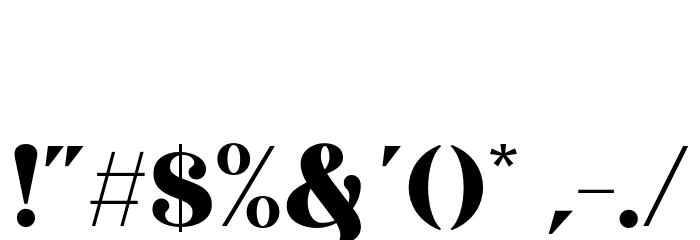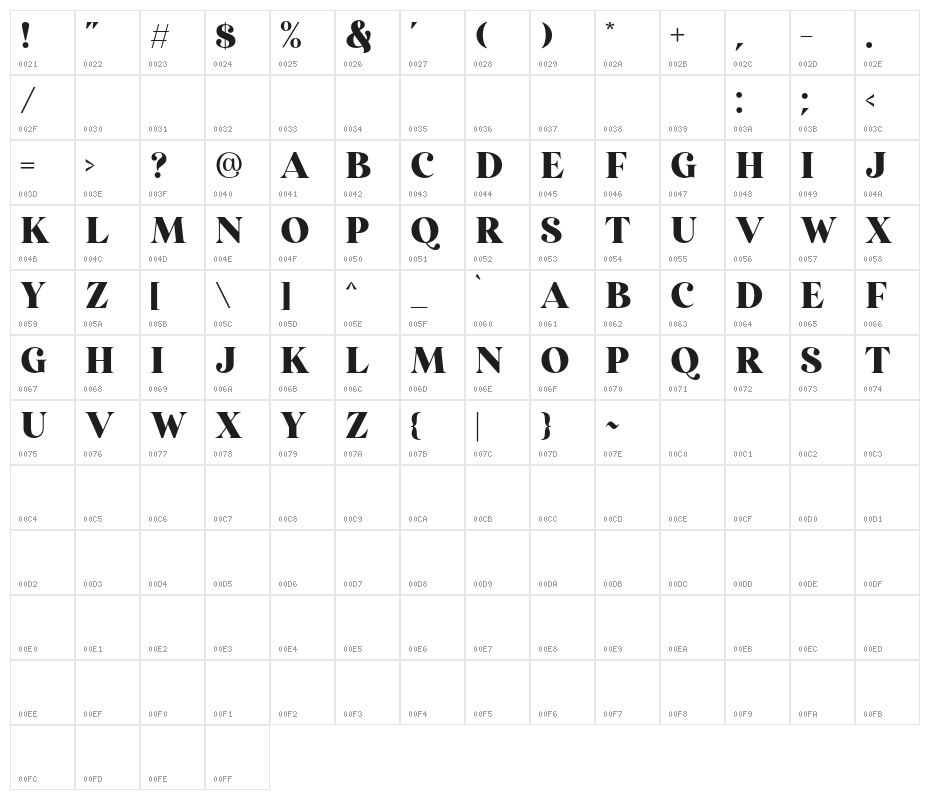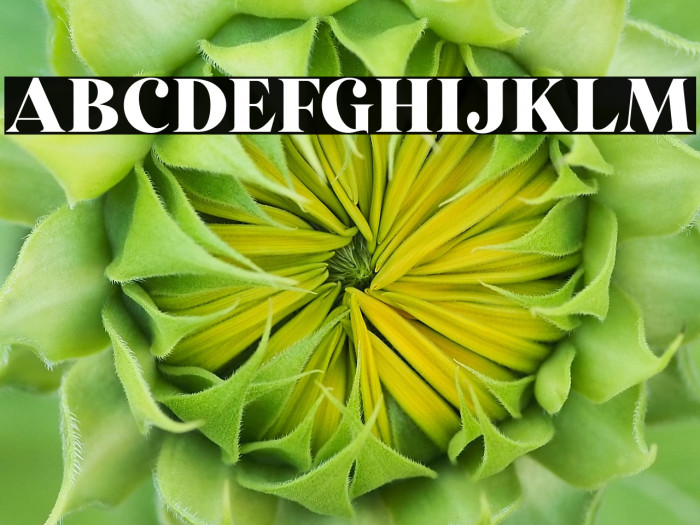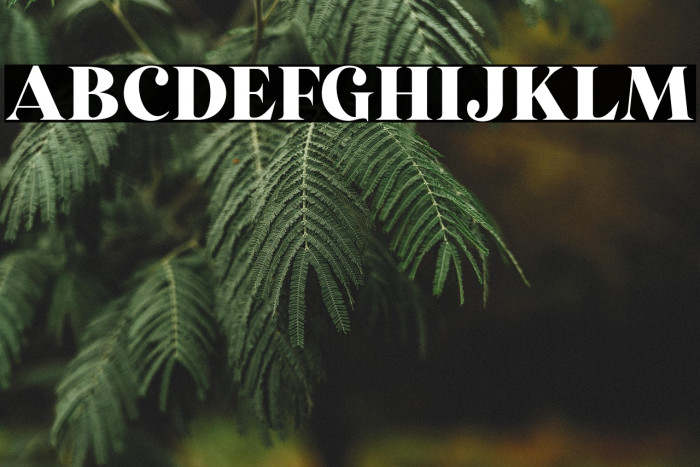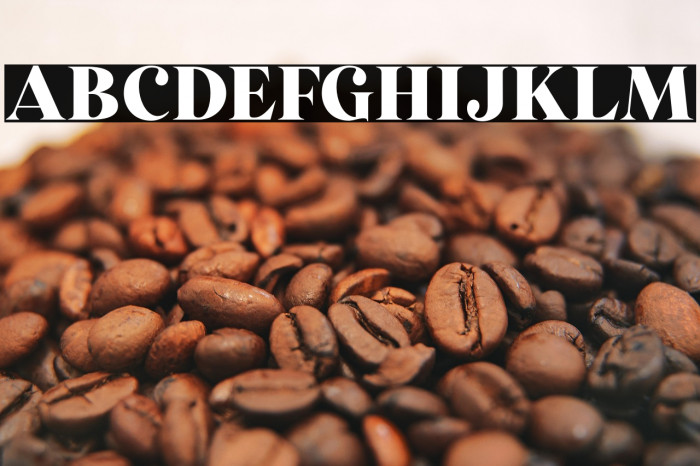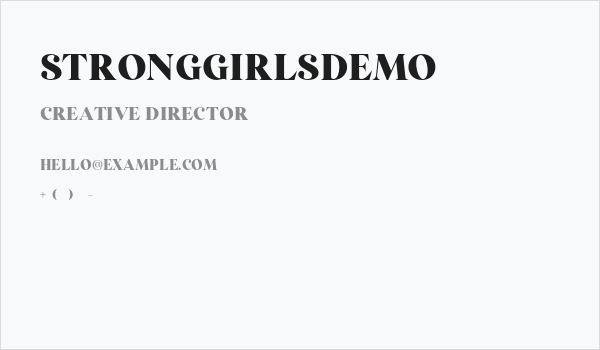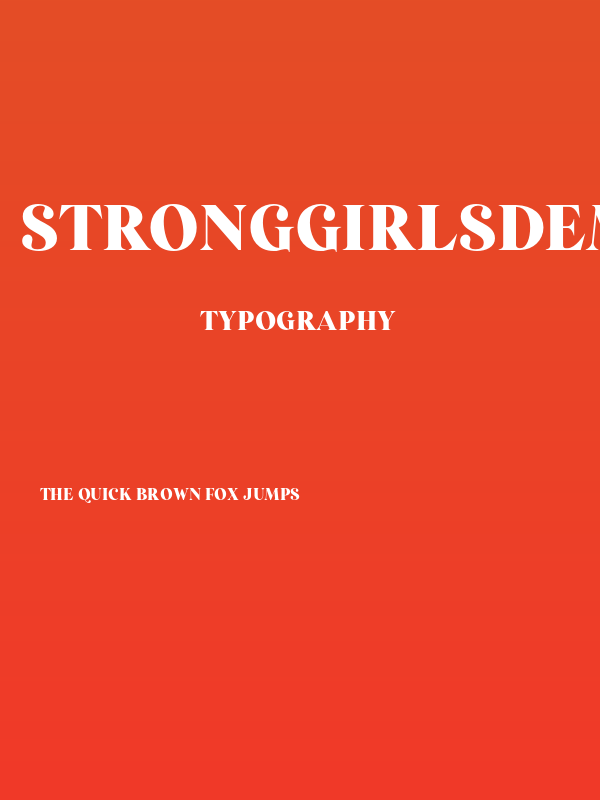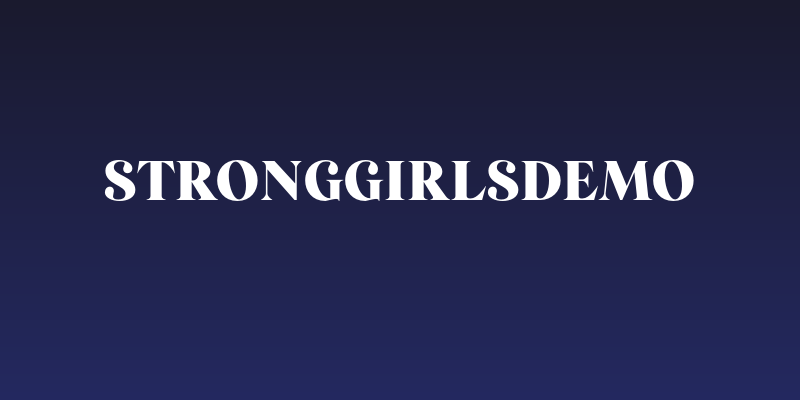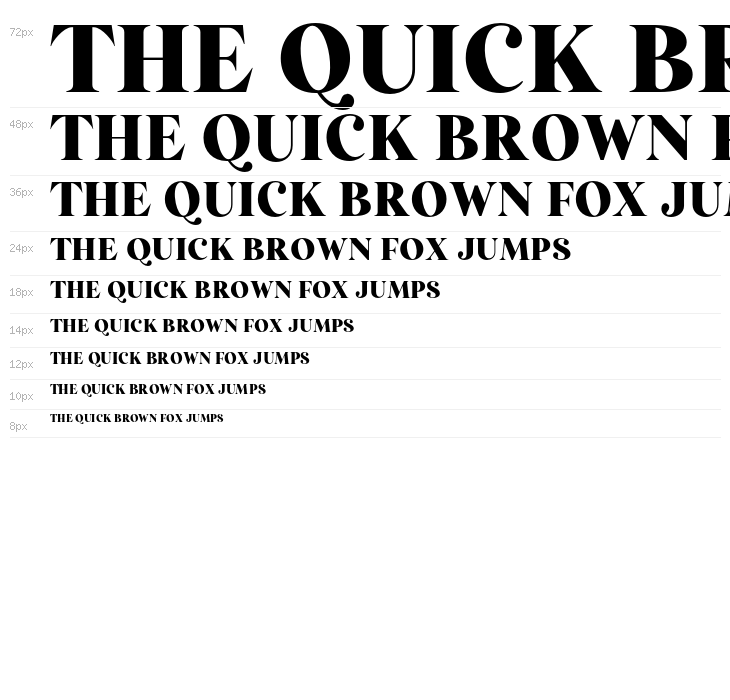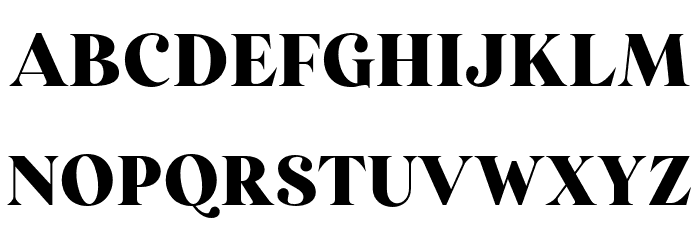
StrongGirlsDEMO Font
StrongGirlsDEMO Description
This font features a bold and striking serif design, characterized by its thick strokes and high contrast between thick and thin lines. The serifs are pronounced and add a touch of elegance and sophistication. The uppercase letters are particularly impactful, making them ideal for headlines and titles. The lowercase letters maintain the same boldness, ensuring consistency across different text sizes. The numerals and special characters are designed with the same attention to detail, providing a cohesive look throughout. The overall style is classic yet modern, making it versatile for various design projects.
| Proposed Projects | Ideal for branding, editorial design, book covers, and high-impact headlines. |